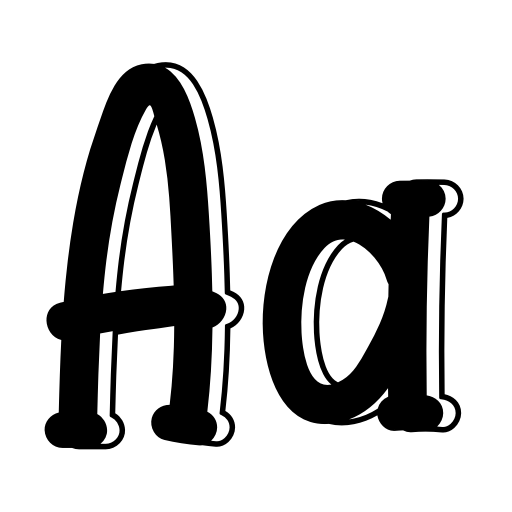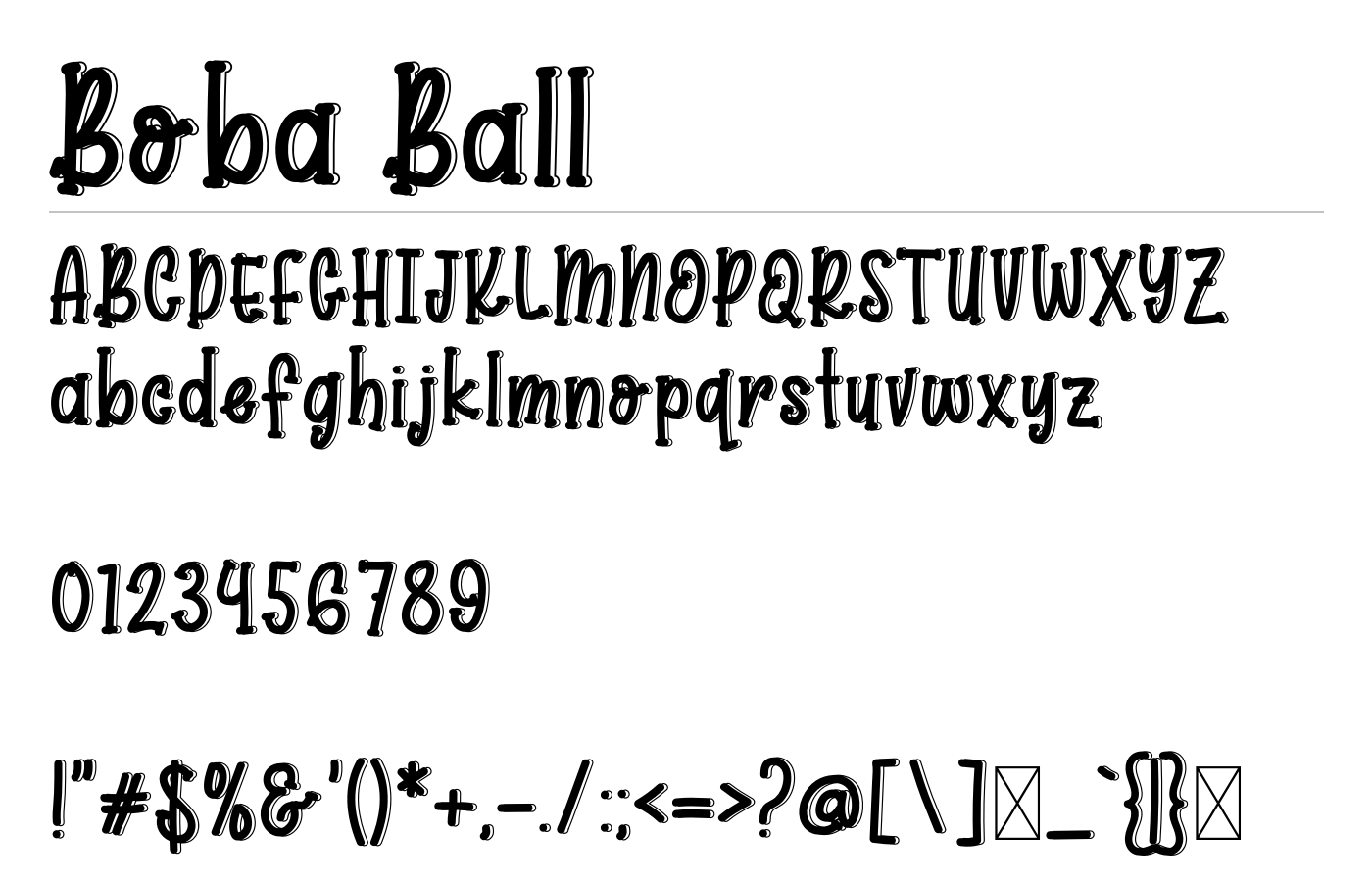
Boba Ball is a playful and quirky serif font with a bold, slightly condensed style and whimsical rounded details on its serifs. Its medium contrast strokes and hand-drawn feel give it a fun, casual personality perfect for children's branding, party invitations, and creative logos. This font works well in headlines and display uses where a lively, friendly vibe is desired.
Boba Ball Font